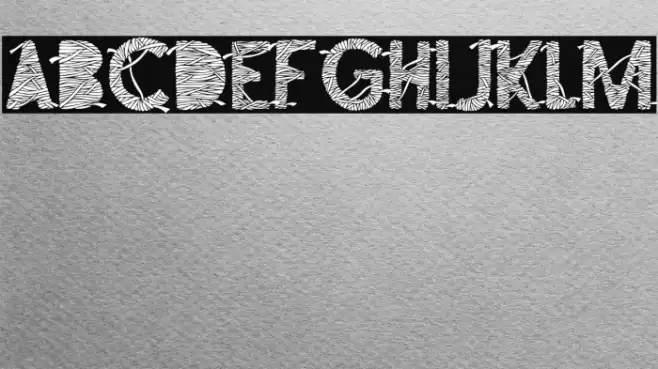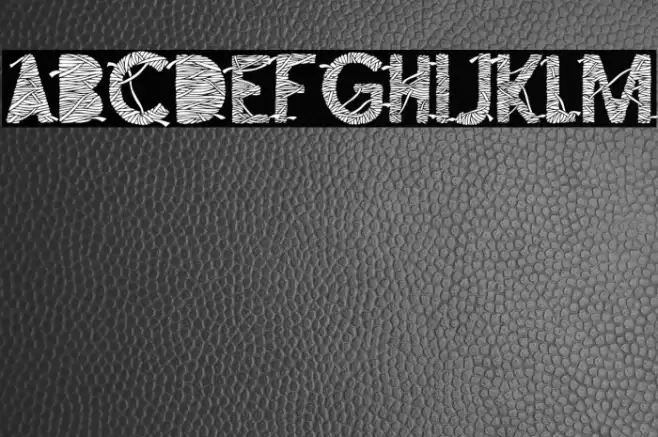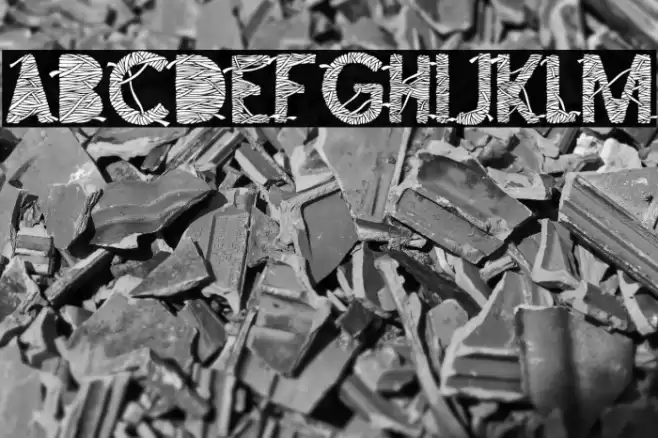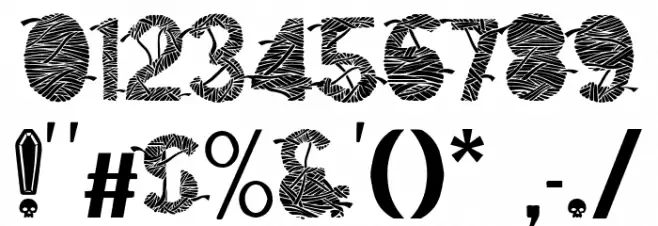
The Mummy R.I.P filling Font
The Mummy R.I.P filling Description
This font features a unique, spooky design reminiscent of ancient Egyptian themes, with a textured, bandage-like appearance that evokes the imagery of mummies. The uppercase letters are bold and striking, with jagged edges and a layered effect that adds depth and dimension. The lowercase letters maintain the same thematic style, with a slightly more compact form. Numbers and special characters are designed with the same eerie aesthetic, making them perfect for Halloween-themed projects or anything requiring a mysterious, ancient vibe. The overall look is both decorative and thematic, capturing the essence of a horror or adventure genre.
A spooky, mummy-themed decorative font with a textured, layered design from Uncategorized fonts.
- Proposed Projects: Ideal for Halloween invitations, horror movie posters, themed party decorations, or any project needing a mysterious, ancient aesthetic.
- Use Case: Headlines, Posters, Themed Events